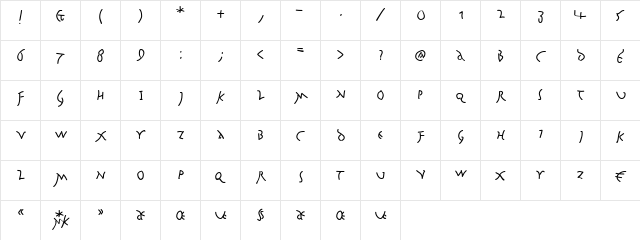
JuliusCTwo Regular
Design Context for JuliusCTwo Typeface
JuliusCTwo is a composed and adaptable typeface that performs quietly and consistently across a wide range of design contexts.